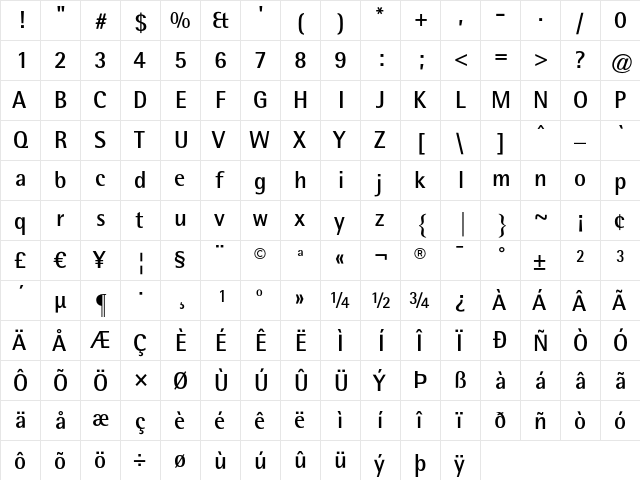
AgfaRotisSemisans Bold Font Preview
AgfaRotisSemisans Bold
Design Context for AgfaRotisSemisans Typeface
AgfaRotisSemisans offers clean, dependable letterforms without strong stylistic allegiance, making it a practical choice for designers who need flexibility. The heavy weight commands attention and anchors typographic hierarchies.